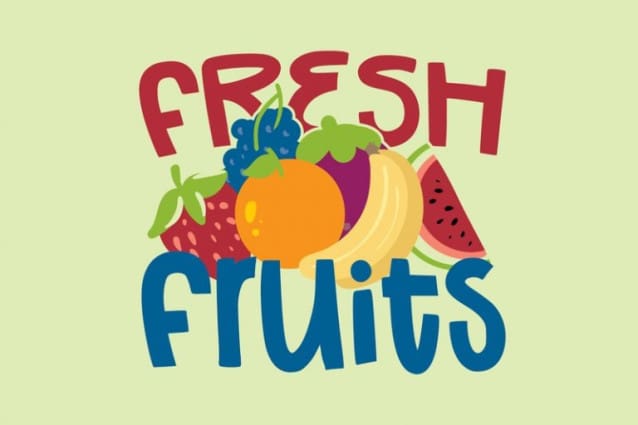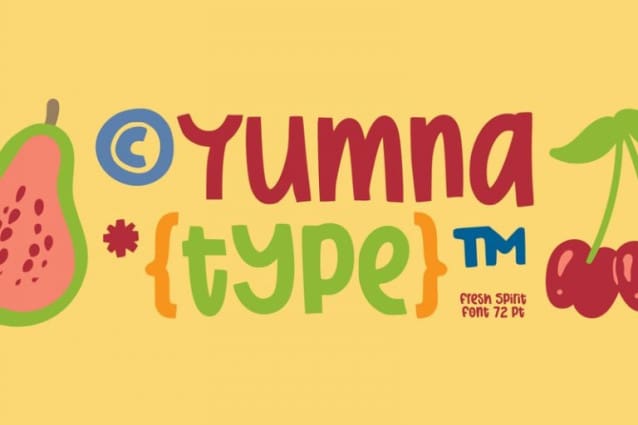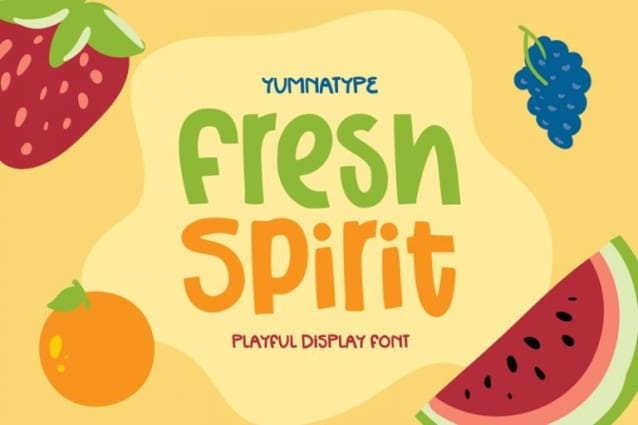
Fresh Spirit Font
Fresh Spirit is a unique display font in round, twisting styles on the letters’ edges. It is very suitable to apply for products related to food and drink especially fruit due to its fun, cute characteristics. Fresh Spirit font, which provides a clipart in line with the theme as a bonus, will create some soft, fun, adorable nuances and increase visual attractiveness to your designs.